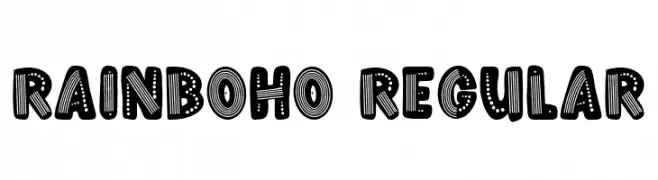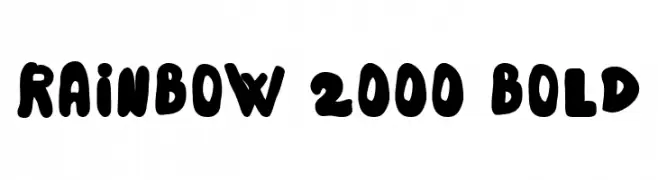
A dynamic, elegant script-style font with bold, slanted uppercase letters.
A playful, decorative font with bold, textured characters featuring lines and dots.
A bold, tall, and narrow sans-serif font with a modern and impactful style.
A playful, bold outline font with a cartoonish, hand-drawn style.
A bold, playful font with rounded edges and a bubbly, retro style.
A bold, playful, and italicized font with rounded strokes and close spacing.
A bold, outlined, and slightly italic font with a playful, hand-drawn style.
A bold, flowing script font with elegant curves and high contrast.